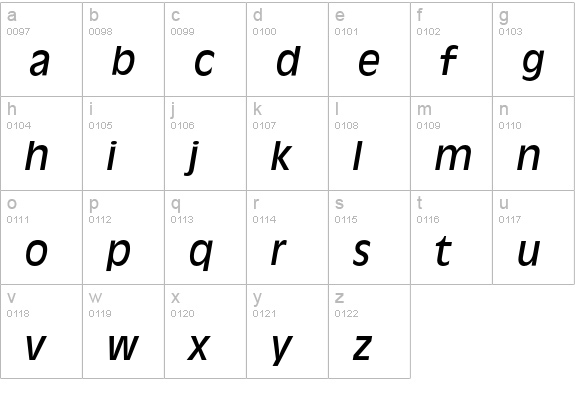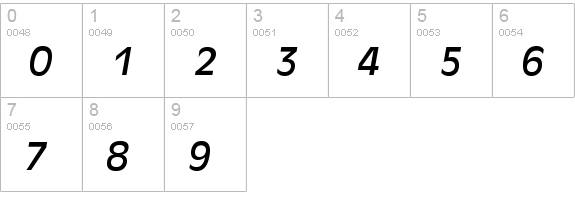
Antique Olive Italic Font Details
Antique Olive Italic is a distinctive, italic variant in the Antique typeface family \xE2\x80\x94 well suited to design and typography projects.
The Antique Olive Italic font exudes elegance and sophistication with its unique slanted design that adds a touch of flair to any project. This timeless font combines classic elements with a modern twist, making it perfect for both traditional and contemporary designs. Its graceful curves and subtle angles create a visually appealing look that is sure to captivate any audience. Best of all, this exquisite Antique Olive Italic font is available for free download at FontsMarket.com. Whether you're working on a branding project, a wedding invitation, or any other creative endeavor, this font is a versatile choice that will elevate your designs to new heights. Download it today and add a touch of class to your next project with the Antique Olive Italic font.